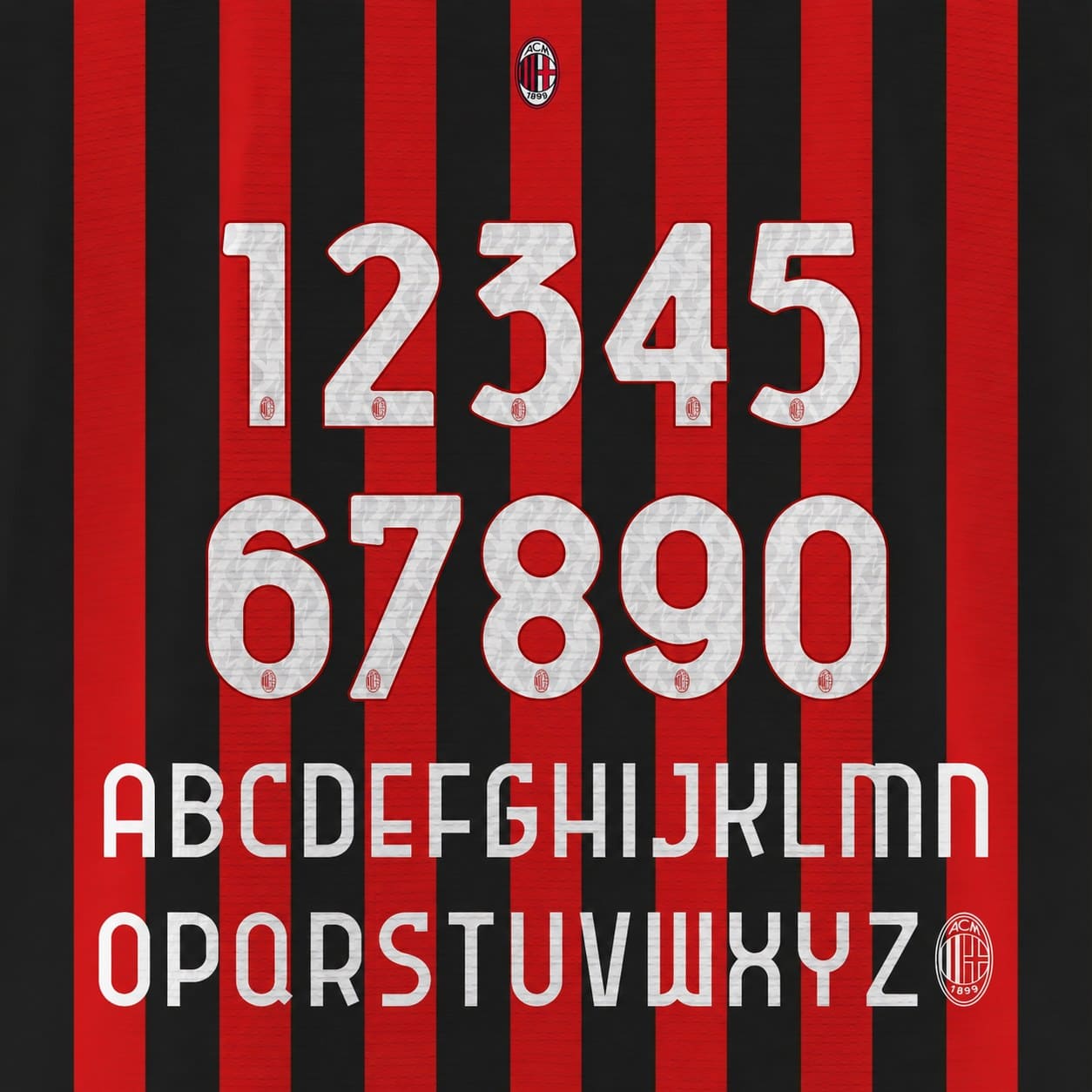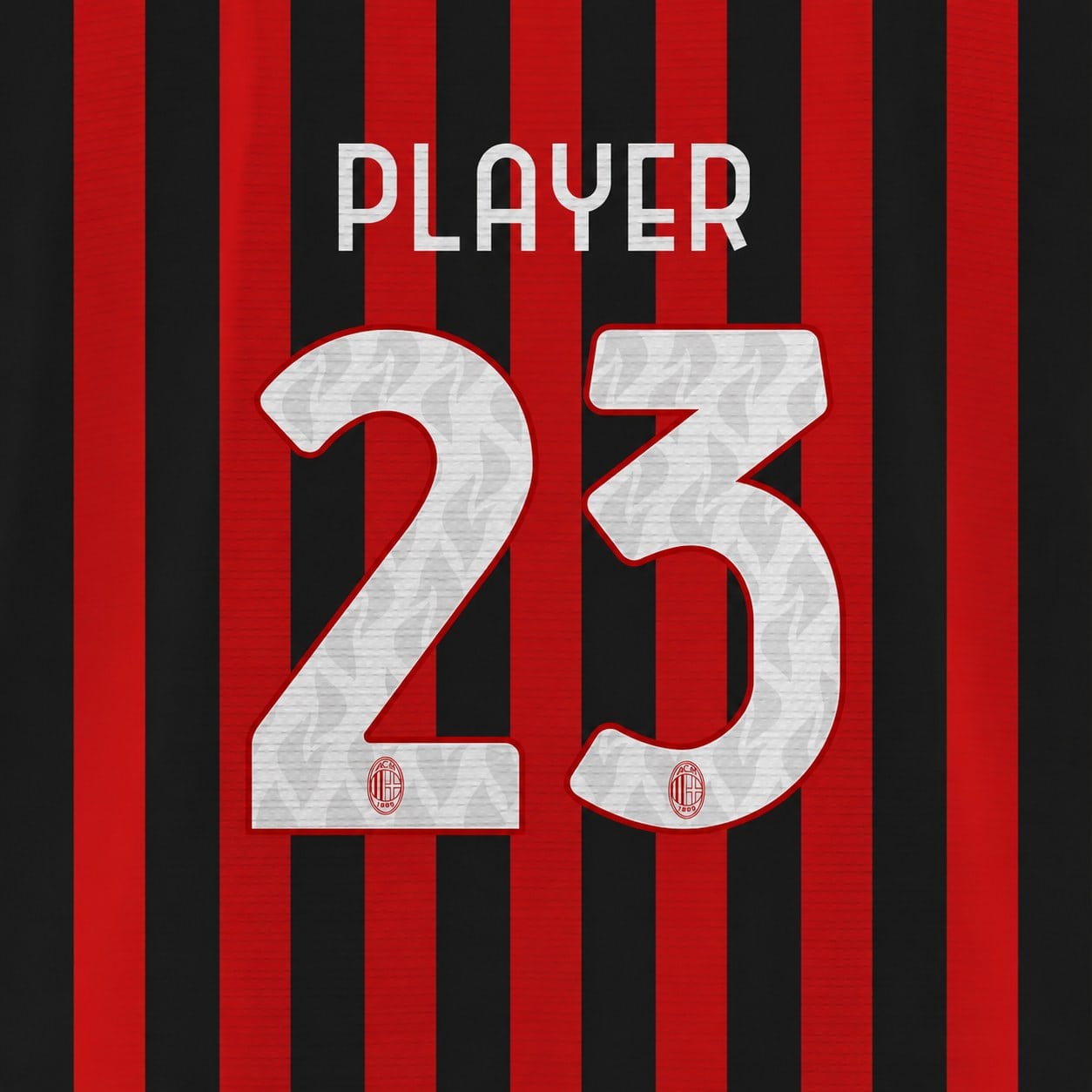
Complete AC Milan 2026/27 font set — every letter and every number in one kit, in this season’s lettering style, white patterned colourway as shown.
- Full set included: all letters A–Z + all numbers 0–9, exactly as shown
- Fine crest detailing inside the numbers